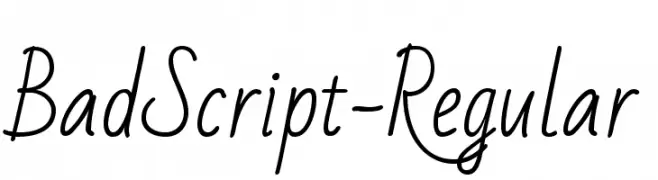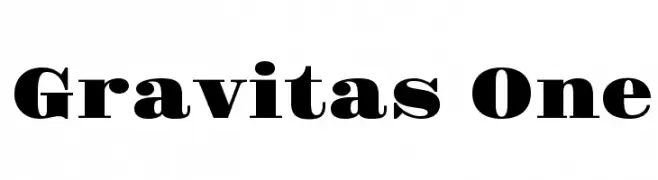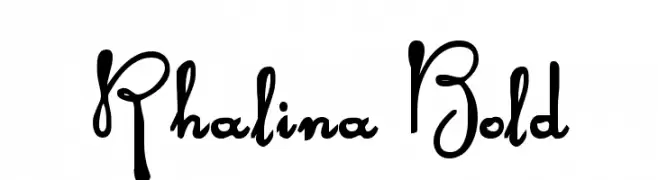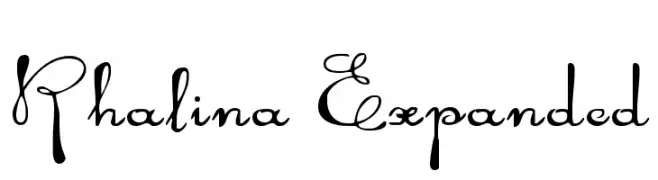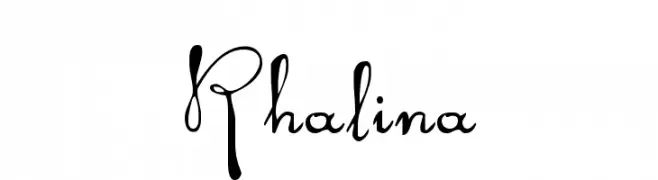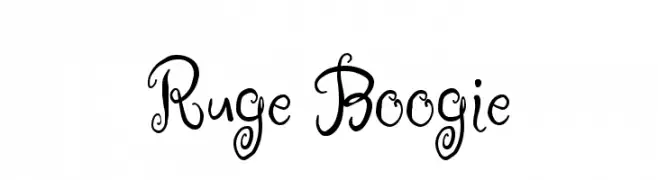
A bold, high-contrast typeface with strong, authoritative strokes.
An elegant script font with fluid, cursive strokes and a sophisticated appearance.
A casual, flowing handwritten script with elegant, slanted characters.
An elegant, flowing script font with intricate loops and flourishes.
A whimsical, curly script font with playful, hand-drawn elements.
An elegant script font with fluid, interconnected strokes and sophisticated flourishes.
An elegant, whimsical font with flowing, cursive-like strokes and intricate loops.
An ornate, decorative font with swirling, cursive elements and intricate flourishes.
An artistic and decorative script font with elegant loops and swirls.